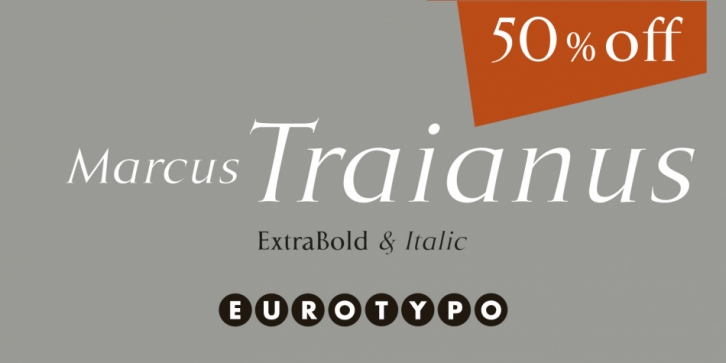
Publisher: Eurotypo
Designed by Olcar Alcaide, Marcus Traianus is a serif font family. This typeface has two styles and was published by Eurotypo.
Between the end of the Republic and the principality of Augustus, there is a significant increase in the use of marble in Rome that radically changes the face of the urban epigraph, consisting of a different and more sophisticated technique, the process of preparation in stone cutters workshops. It was the Roman care of drawing the letters on the stone before carving them which allowed to set a standard for an entire millennium.
We are presenting two new styles of MarcusTraianus family: ExtraBold and Regular Italic.
These founts are carefully crafted, inspired by the famous inscription of the Trajan Column.
· Italic
· Extra Bold